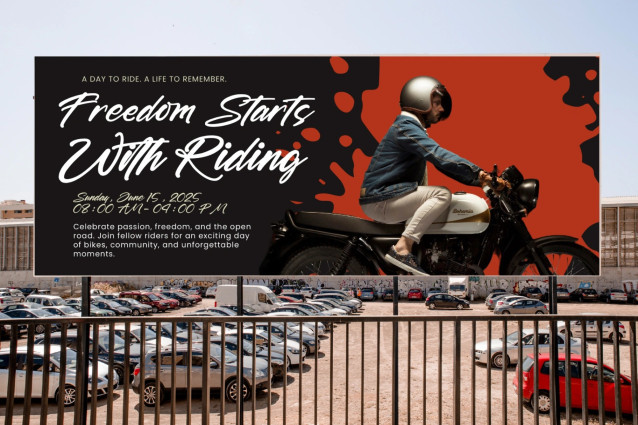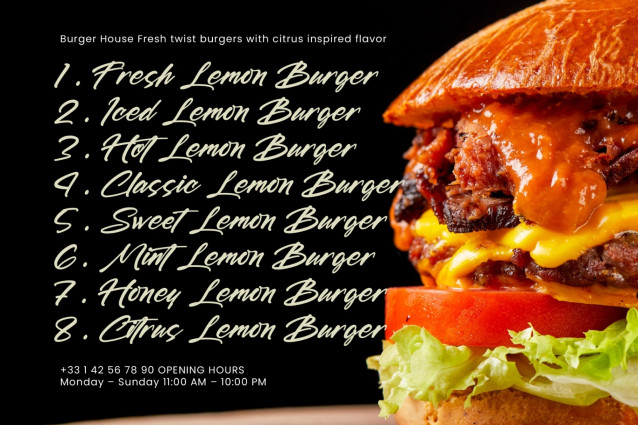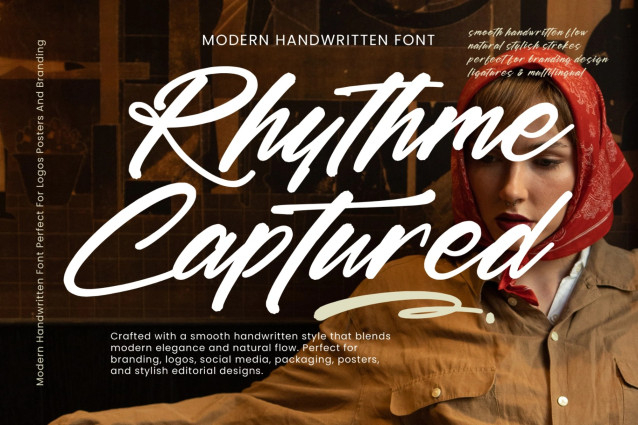
Rhythme Captured Font
Rhythme Captured Font is a modern handwritten font that combines smooth flowing strokes with elegant natural movement. Carefully crafted to deliver an authentic handwritten appearance, this typeface brings warmth, personality, and sophistication to every design project. Featuring graceful letterforms, stylish swashes, and seamless connections, Rhythme Captured creates a refined handwritten aesthetic that feels both contemporary and timeless.
Its versatile character makes it ideal for branding, editorial layouts, social media content, packaging, and premium marketing materials. The smooth handwritten flow and expressive details allow your designs to stand out while maintaining excellent readability. Whether you’re creating a luxury logo, fashion branding, product packaging, or eye-catching headlines, Rhythme Captured delivers a polished and professional handwritten touch.